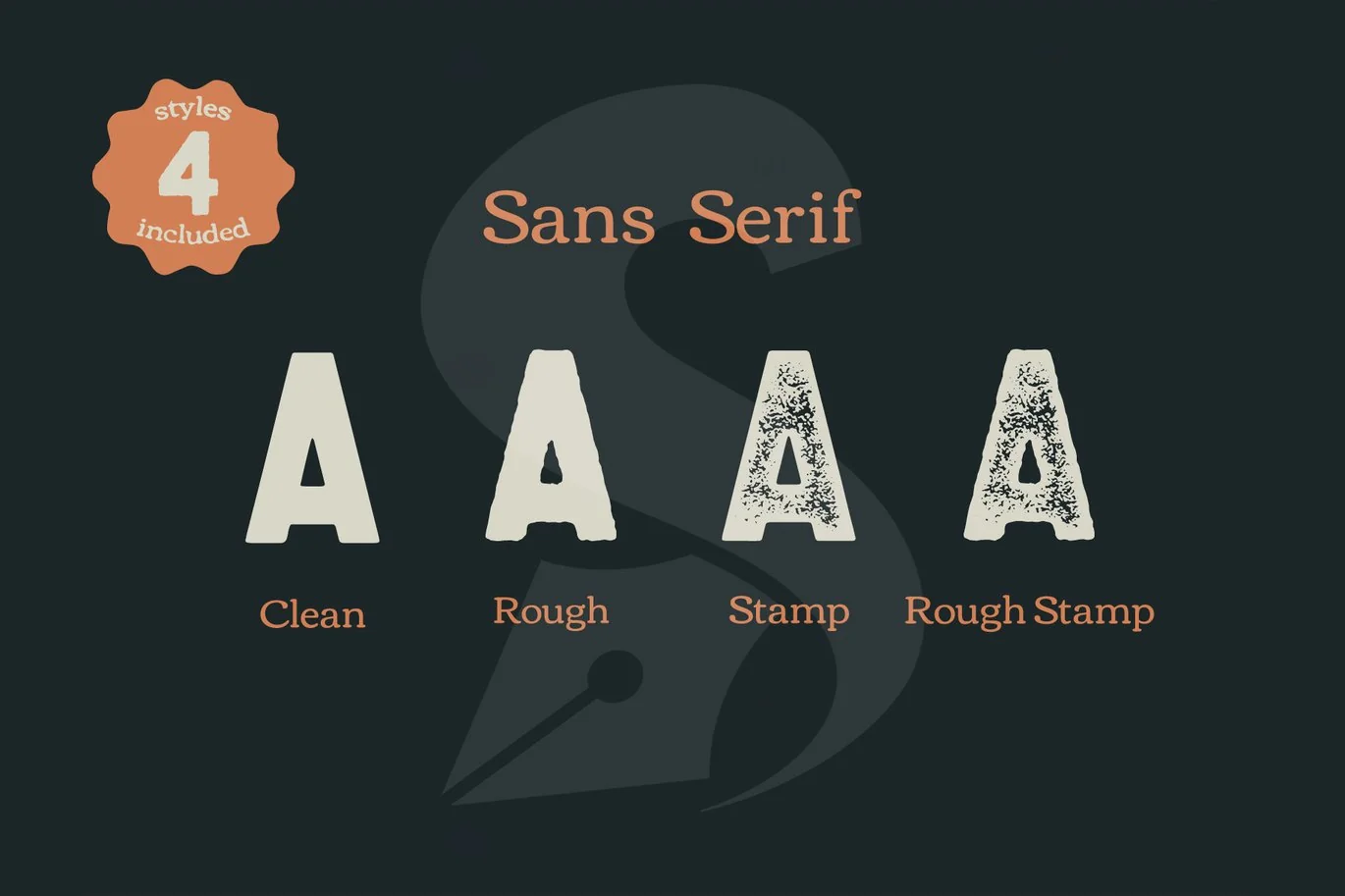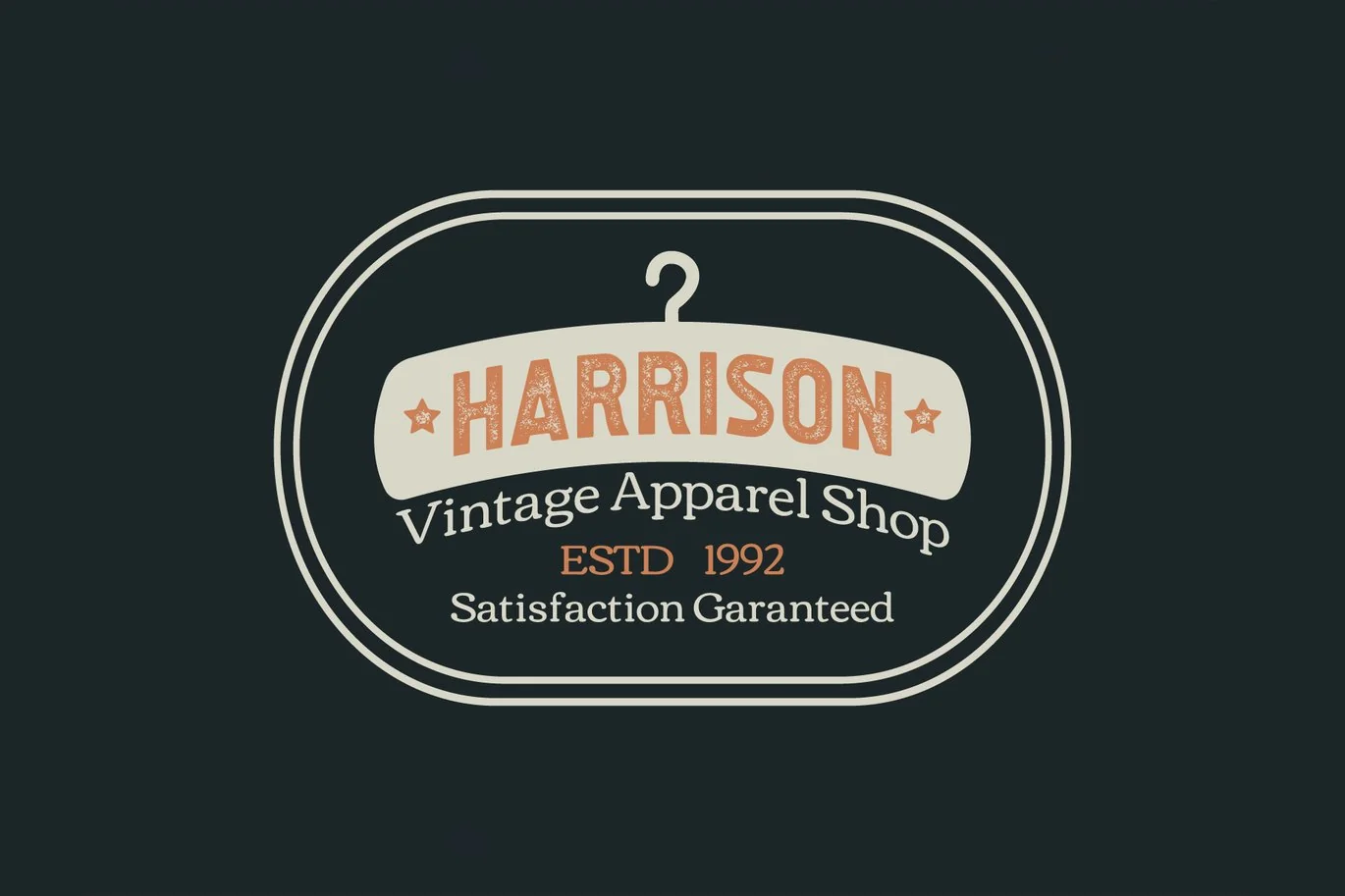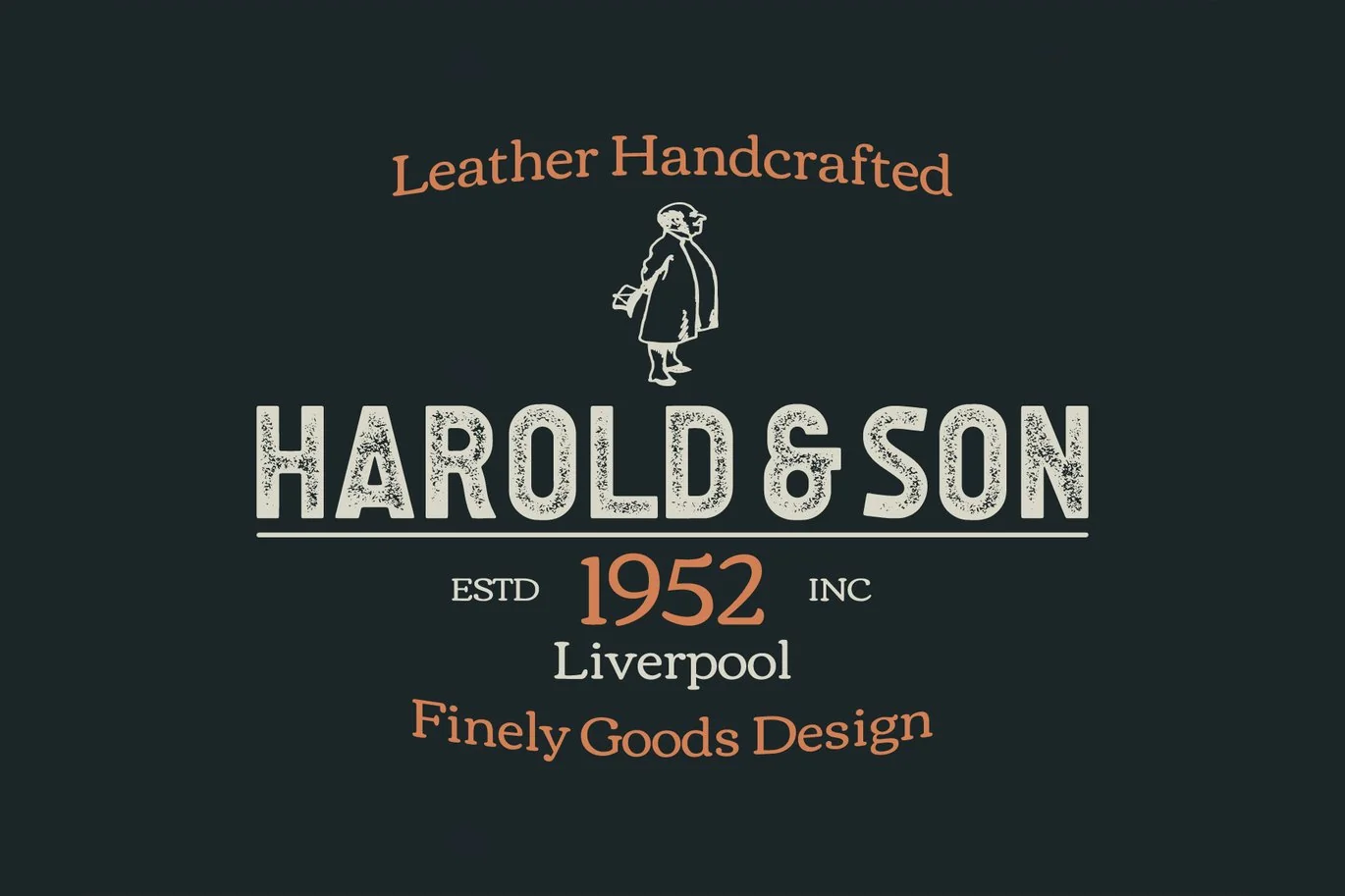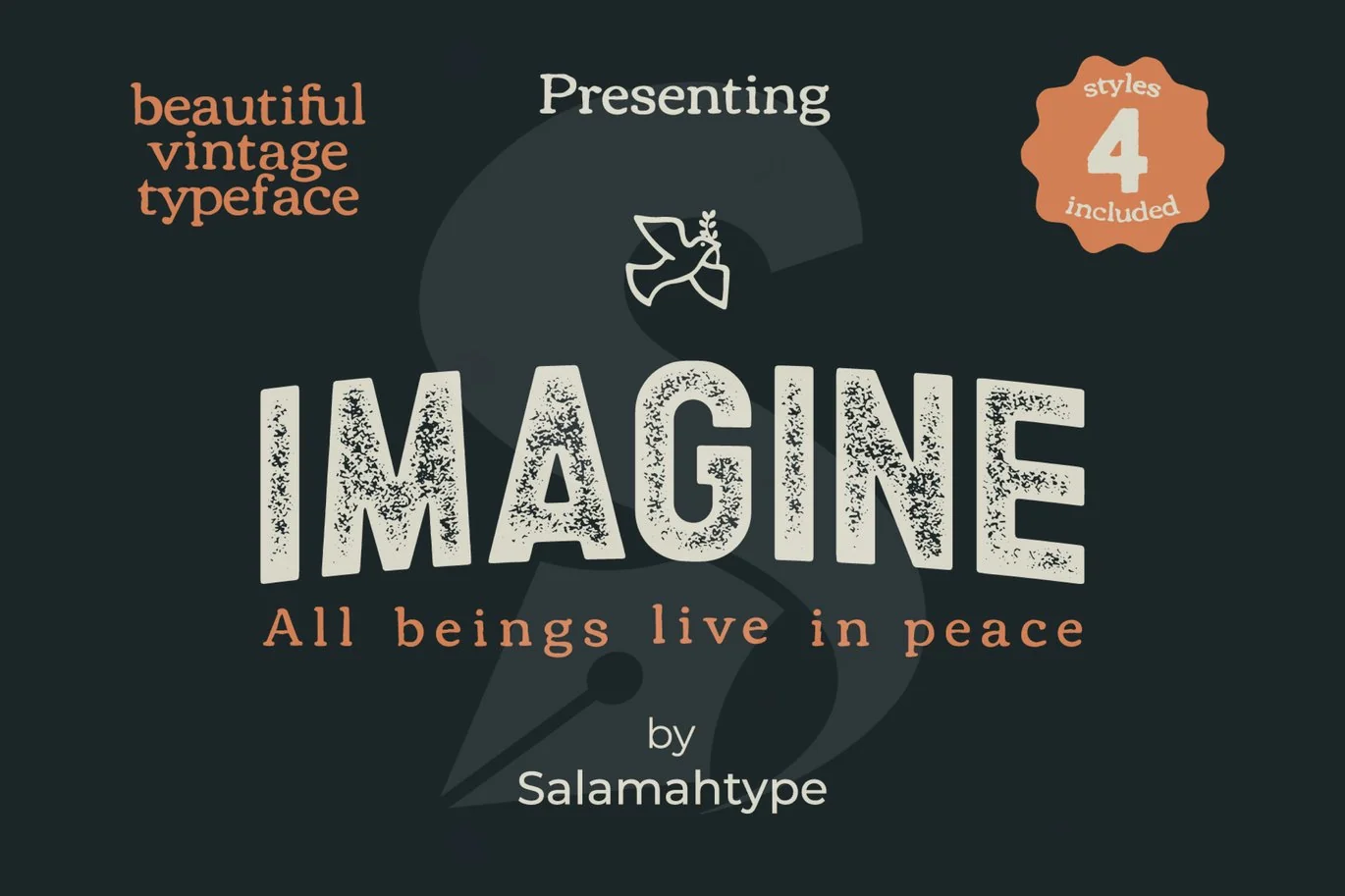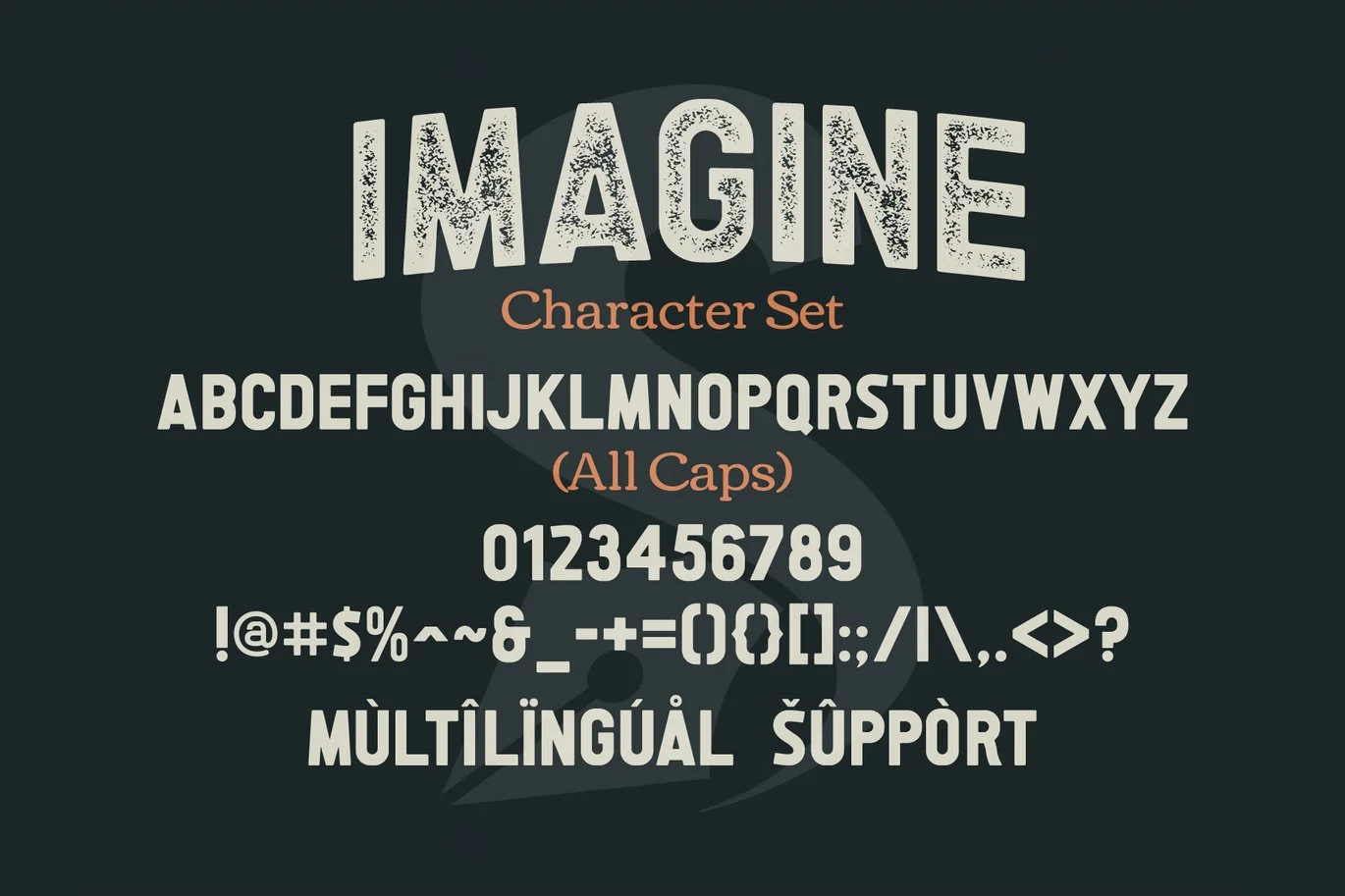
Imagine Sans – Display Font
Imagine Sans is a display sans based typeface with 4 styles included (clean, rough, stamp, rough stamp). This font is perfect for branding projects, logos, labels, product packaging and more.
- All caps characters
- Symbols and punctuation